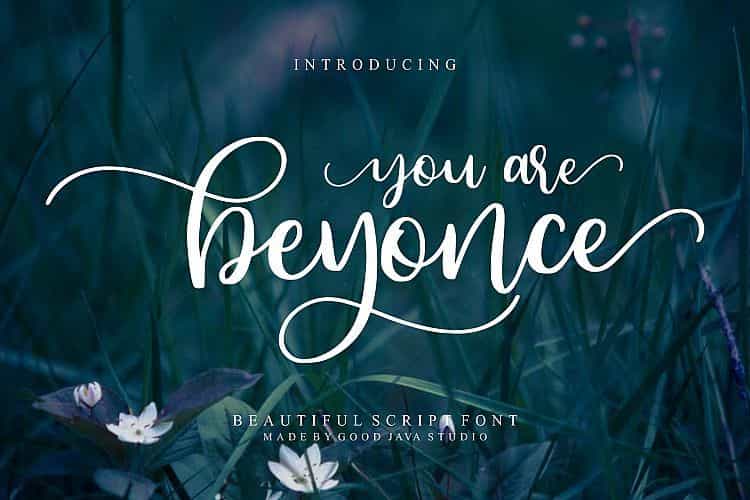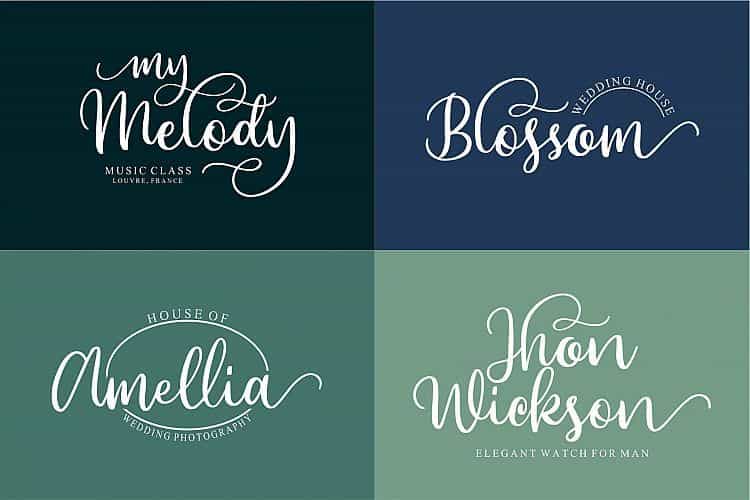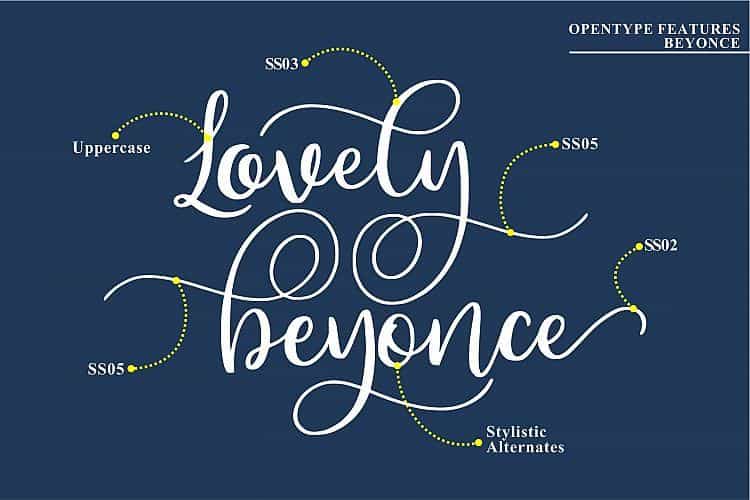
Discover Beyonce Calligraphy Font, part of the Calligraphy collection—a versatile and unique font perfect for adding a personal touch to your projects. Download it for free and enjoy crafting designs with style, from invitations to social media posts. This font is available exclusively for personal use, giving you the freedom to create without limits. Unlock your creativity with Beyonce Calligraphy Font today!
Introducing Beyonce Font! Beyonce a Beauty Font is a natural & modern handwritten font. It is Perfect for logo, invitation, station stationery, wedding designs, social media posts, advertisements, product packaging, product designs, label, photography, watermark, special events or anything.